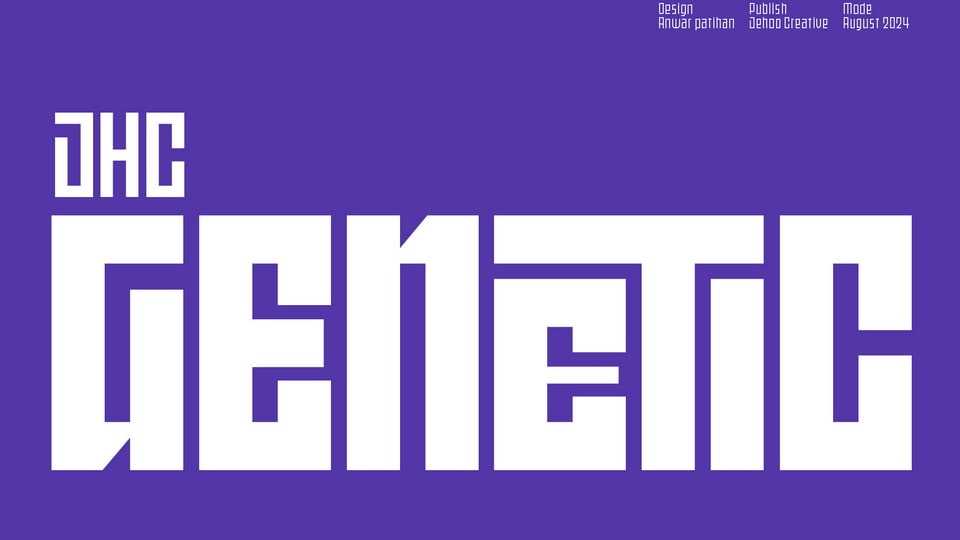
JHC Genetic Font › Fontesk – Download Grátis
Download JHC Genetic font, a sleek, modern typeface characterized by its compact rectangular shapes and consistent flat angles.